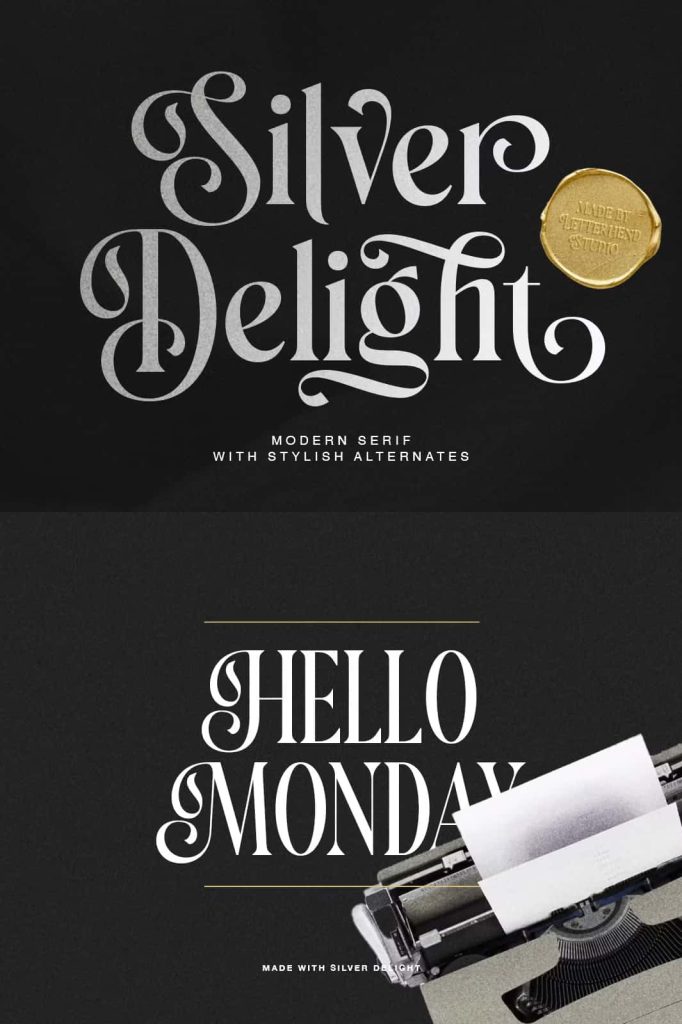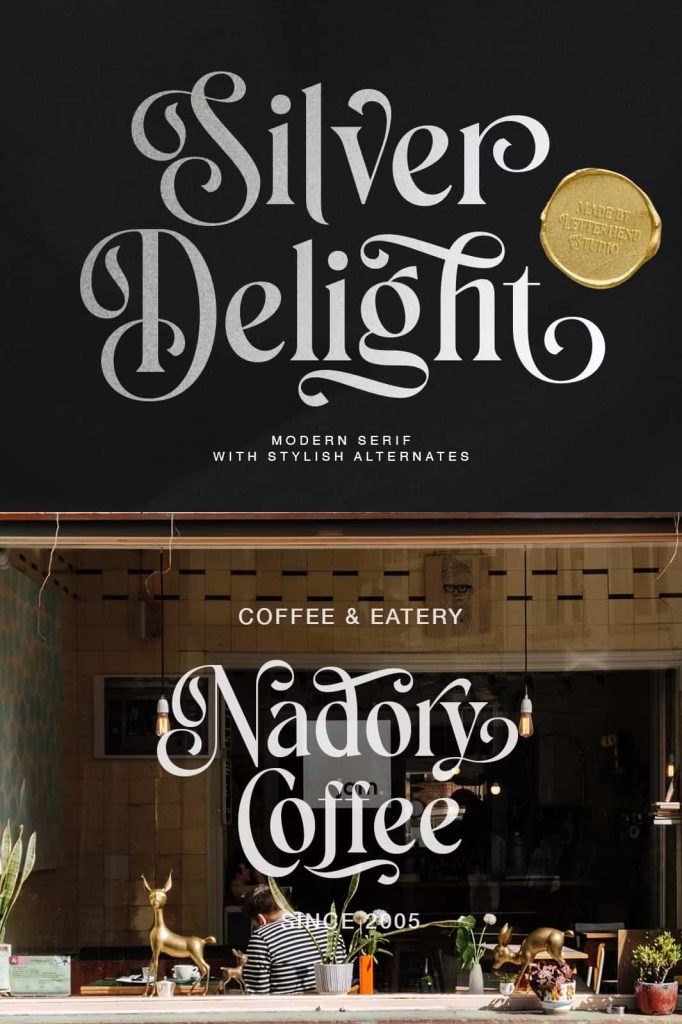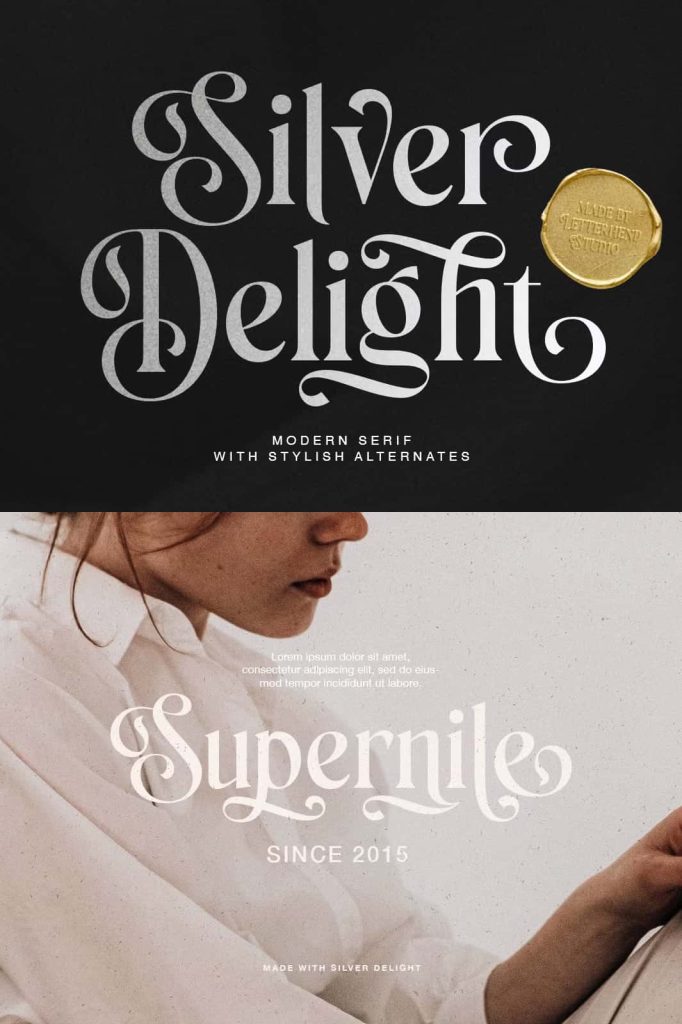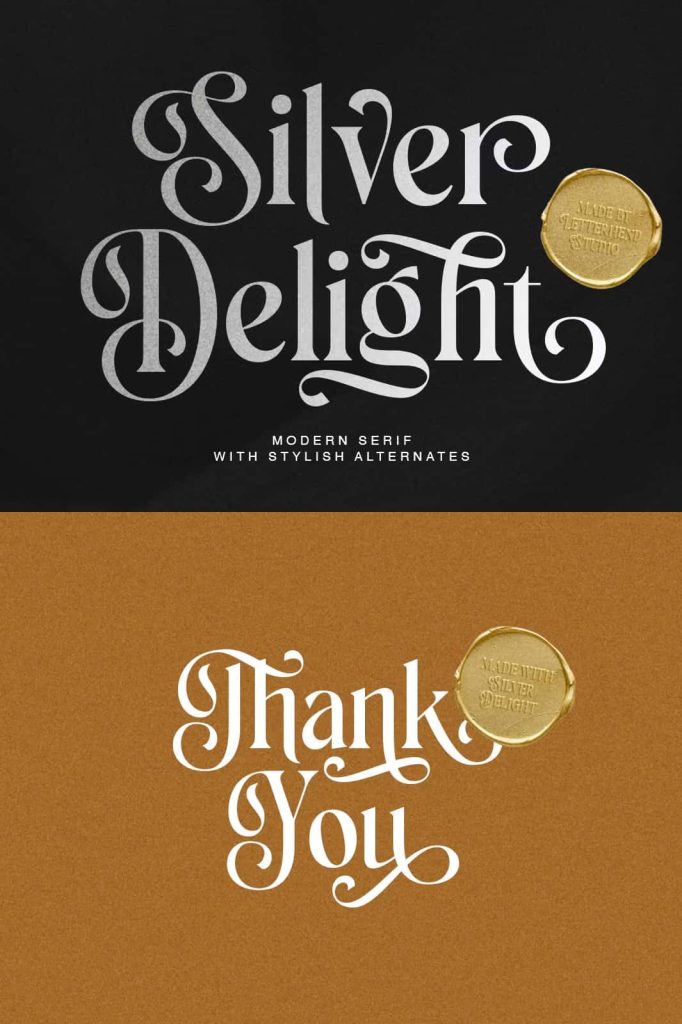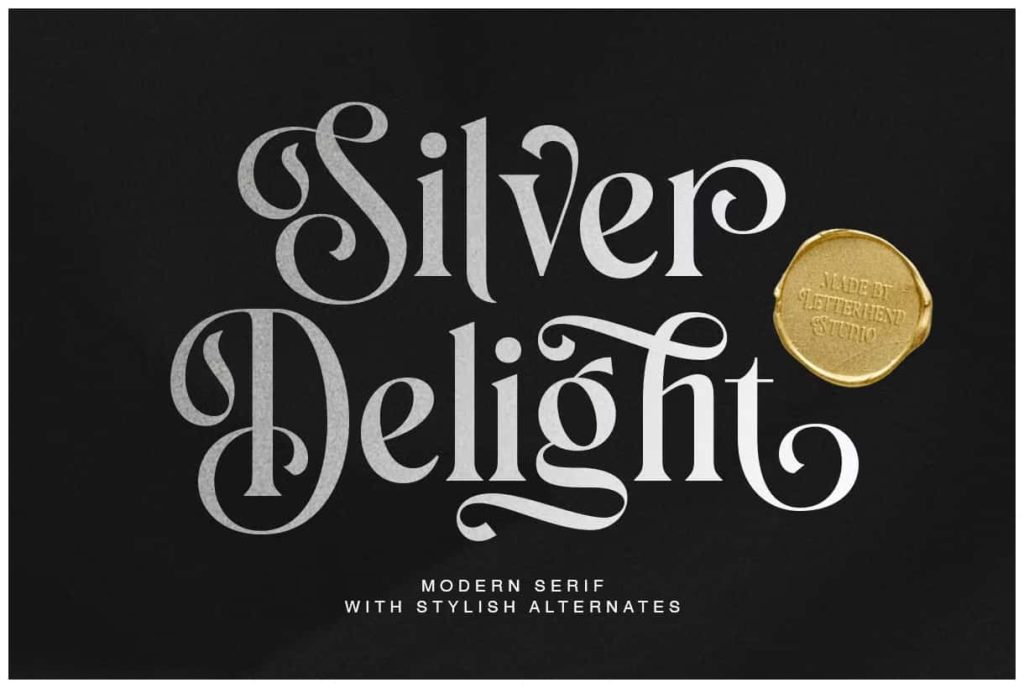
Silver Delight Modern SerifleastedJune 3, 2025Fonts Silver Delight is a modern serif. This typeface has many stylish alternates with swashes that can make your lettering Download